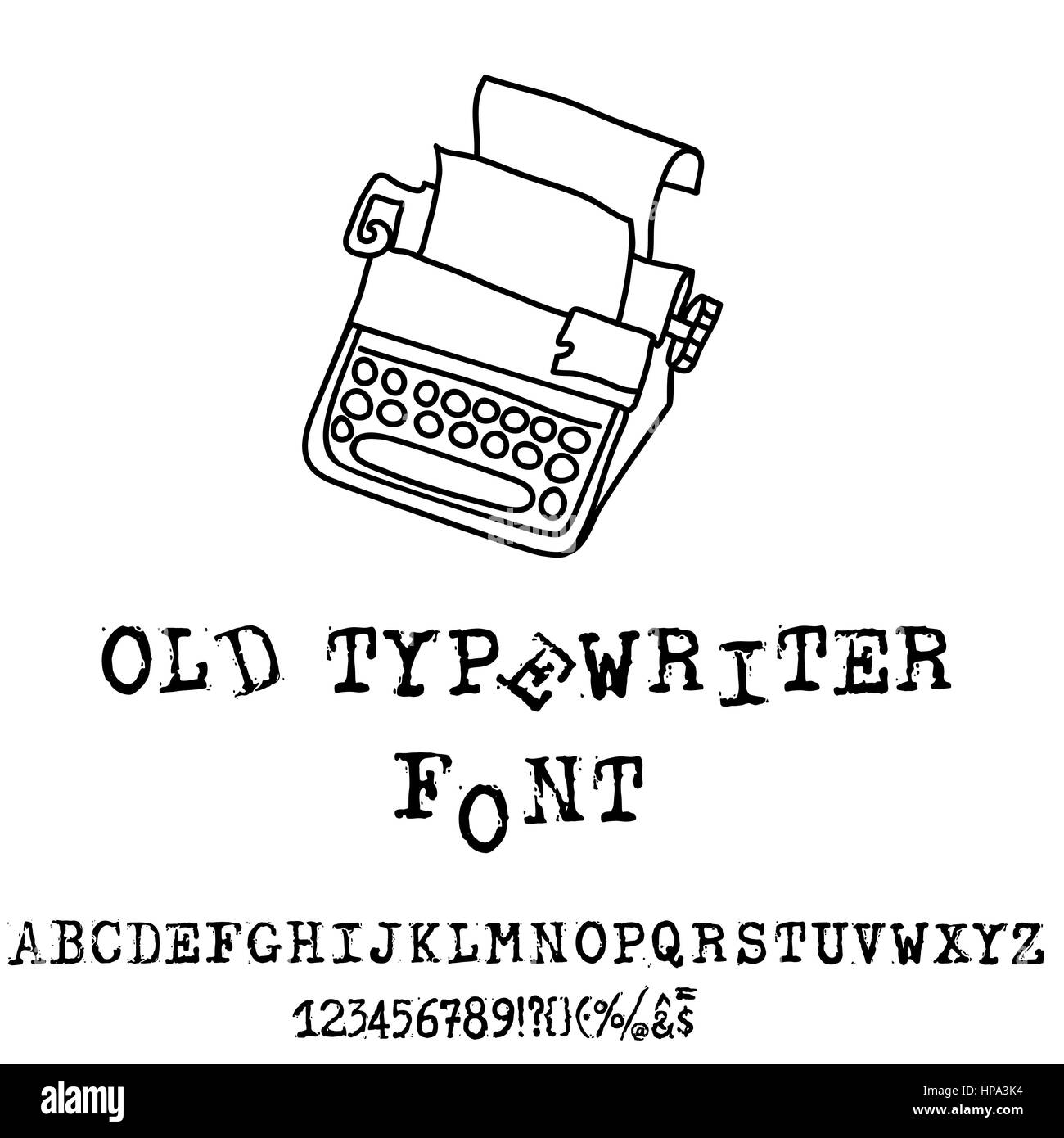
What Font Was Used On Old Typewriters . The design of the characters and the printing differences among models were used back then for typewriting identification. — a classic typewriter font has such a stylish, vintage feel. — most companies had their own pica typeface, a monospaced font that fit ten characters to the inch. There are found on the majority of the typewriters and can be easily found on any machine. This type style quickly spread, but it was not the only option available. Here are the best typewriter fonts that are. — the most common typefaces models are elite typeface (usually 11 or 12 cpi) and pica typeface (usually 10cpi). Whether you're looking for an old typewriter font or a. The first typewriter model i want to tackle is the hammond typewriters. let’s pay homage to this highly versatile piece of equipment that helped to launch careers and rewrite history. These fonts mimic the look of.
The design of the characters and the printing differences among models were used back then for typewriting identification. There are found on the majority of the typewriters and can be easily found on any machine. — a classic typewriter font has such a stylish, vintage feel. — most companies had their own pica typeface, a monospaced font that fit ten characters to the inch. — the most common typefaces models are elite typeface (usually 11 or 12 cpi) and pica typeface (usually 10cpi). These fonts mimic the look of. Whether you're looking for an old typewriter font or a. Here are the best typewriter fonts that are. let’s pay homage to this highly versatile piece of equipment that helped to launch careers and rewrite history. The first typewriter model i want to tackle is the hammond typewriters.
What Font Was Used On Old Typewriters let’s pay homage to this highly versatile piece of equipment that helped to launch careers and rewrite history. — a classic typewriter font has such a stylish, vintage feel. Here are the best typewriter fonts that are. let’s pay homage to this highly versatile piece of equipment that helped to launch careers and rewrite history. These fonts mimic the look of. The first typewriter model i want to tackle is the hammond typewriters. The design of the characters and the printing differences among models were used back then for typewriting identification. There are found on the majority of the typewriters and can be easily found on any machine. Whether you're looking for an old typewriter font or a. — the most common typefaces models are elite typeface (usually 11 or 12 cpi) and pica typeface (usually 10cpi). This type style quickly spread, but it was not the only option available. — most companies had their own pica typeface, a monospaced font that fit ten characters to the inch.
20 Exceptional Typewriter Fonts Inspirationfeed What Font Was Used On Old Typewriters — most companies had their own pica typeface, a monospaced font that fit ten characters to the inch. There are found on the majority of the typewriters and can be easily found on any machine. The first typewriter model i want to tackle is the hammond typewriters. The design of the characters and the printing differences among models were. What Font Was Used On Old Typewriters.
Typewriter Font Type Font American Typewriter Font Old Typewriter Font What Font Was Used On Old Typewriters These fonts mimic the look of. — most companies had their own pica typeface, a monospaced font that fit ten characters to the inch. The first typewriter model i want to tackle is the hammond typewriters. This type style quickly spread, but it was not the only option available. There are found on the majority of the typewriters and. What Font Was Used On Old Typewriters.
Old Typewriter Font Dfonts What Font Was Used On Old Typewriters This type style quickly spread, but it was not the only option available. Here are the best typewriter fonts that are. — the most common typefaces models are elite typeface (usually 11 or 12 cpi) and pica typeface (usually 10cpi). let’s pay homage to this highly versatile piece of equipment that helped to launch careers and rewrite history.. What Font Was Used On Old Typewriters.
Letters Of An Old Typewriter Stock Image Image of metallic, data 2354325 What Font Was Used On Old Typewriters This type style quickly spread, but it was not the only option available. These fonts mimic the look of. let’s pay homage to this highly versatile piece of equipment that helped to launch careers and rewrite history. The first typewriter model i want to tackle is the hammond typewriters. There are found on the majority of the typewriters and. What Font Was Used On Old Typewriters.
Elegant typewriter / Typewriter What Font Was Used On Old Typewriters — a classic typewriter font has such a stylish, vintage feel. These fonts mimic the look of. Here are the best typewriter fonts that are. — most companies had their own pica typeface, a monospaced font that fit ten characters to the inch. let’s pay homage to this highly versatile piece of equipment that helped to launch. What Font Was Used On Old Typewriters.
Old typewriter font style vintage font Royalty Free Vector What Font Was Used On Old Typewriters The first typewriter model i want to tackle is the hammond typewriters. — a classic typewriter font has such a stylish, vintage feel. The design of the characters and the printing differences among models were used back then for typewriting identification. — the most common typefaces models are elite typeface (usually 11 or 12 cpi) and pica typeface. What Font Was Used On Old Typewriters.
Old Typewriter Font What Font Was Used On Old Typewriters Here are the best typewriter fonts that are. Whether you're looking for an old typewriter font or a. This type style quickly spread, but it was not the only option available. The design of the characters and the printing differences among models were used back then for typewriting identification. The first typewriter model i want to tackle is the hammond. What Font Was Used On Old Typewriters.
Typewriter Font Type Font American Typewriter Font Old Typewriter Font What Font Was Used On Old Typewriters — a classic typewriter font has such a stylish, vintage feel. This type style quickly spread, but it was not the only option available. The design of the characters and the printing differences among models were used back then for typewriting identification. — most companies had their own pica typeface, a monospaced font that fit ten characters to. What Font Was Used On Old Typewriters.
From time.com
Vintage Typewriters See How They Evolved over the Years TIME What Font Was Used On Old Typewriters These fonts mimic the look of. Whether you're looking for an old typewriter font or a. There are found on the majority of the typewriters and can be easily found on any machine. — most companies had their own pica typeface, a monospaced font that fit ten characters to the inch. Here are the best typewriter fonts that are.. What Font Was Used On Old Typewriters.
Grunge Alphabet from Vintage Typewriter Keys Vintage typewriters What Font Was Used On Old Typewriters — a classic typewriter font has such a stylish, vintage feel. The design of the characters and the printing differences among models were used back then for typewriting identification. — the most common typefaces models are elite typeface (usually 11 or 12 cpi) and pica typeface (usually 10cpi). let’s pay homage to this highly versatile piece of. What Font Was Used On Old Typewriters.
Retrotype Classic Typewriter Font MasterBundles What Font Was Used On Old Typewriters — most companies had their own pica typeface, a monospaced font that fit ten characters to the inch. — a classic typewriter font has such a stylish, vintage feel. These fonts mimic the look of. — the most common typefaces models are elite typeface (usually 11 or 12 cpi) and pica typeface (usually 10cpi). Whether you're looking. What Font Was Used On Old Typewriters.
20+ Best Classic Typewriter Fonts With Vintage Machine Styles What Font Was Used On Old Typewriters There are found on the majority of the typewriters and can be easily found on any machine. The first typewriter model i want to tackle is the hammond typewriters. — the most common typefaces models are elite typeface (usually 11 or 12 cpi) and pica typeface (usually 10cpi). — a classic typewriter font has such a stylish, vintage. What Font Was Used On Old Typewriters.
TYPEWRITER FONT SVG, Vintage Typewriter Font Svg, Typewriter Alphabet What Font Was Used On Old Typewriters Here are the best typewriter fonts that are. let’s pay homage to this highly versatile piece of equipment that helped to launch careers and rewrite history. The first typewriter model i want to tackle is the hammond typewriters. There are found on the majority of the typewriters and can be easily found on any machine. Whether you're looking for. What Font Was Used On Old Typewriters.
From www.txantiquemall.com
Underwood Typewriter [History, Value, Models] A Complete Guide What Font Was Used On Old Typewriters The design of the characters and the printing differences among models were used back then for typewriting identification. let’s pay homage to this highly versatile piece of equipment that helped to launch careers and rewrite history. These fonts mimic the look of. — the most common typefaces models are elite typeface (usually 11 or 12 cpi) and pica. What Font Was Used On Old Typewriters.
20+ Best Classic Typewriter Fonts With Old (Vintage) Machine Styles What Font Was Used On Old Typewriters These fonts mimic the look of. Whether you're looking for an old typewriter font or a. — the most common typefaces models are elite typeface (usually 11 or 12 cpi) and pica typeface (usually 10cpi). — a classic typewriter font has such a stylish, vintage feel. There are found on the majority of the typewriters and can be. What Font Was Used On Old Typewriters.
The Best Typewriter Fonts for an Old Timey Effect Design Cuts What Font Was Used On Old Typewriters The first typewriter model i want to tackle is the hammond typewriters. Whether you're looking for an old typewriter font or a. The design of the characters and the printing differences among models were used back then for typewriting identification. — most companies had their own pica typeface, a monospaced font that fit ten characters to the inch. . What Font Was Used On Old Typewriters.
Free vintage typewriter fonts — FontsArena What Font Was Used On Old Typewriters — the most common typefaces models are elite typeface (usually 11 or 12 cpi) and pica typeface (usually 10cpi). The design of the characters and the printing differences among models were used back then for typewriting identification. — a classic typewriter font has such a stylish, vintage feel. This type style quickly spread, but it was not the. What Font Was Used On Old Typewriters.
Old typewriter font style vintage font Royalty Free Vector What Font Was Used On Old Typewriters — most companies had their own pica typeface, a monospaced font that fit ten characters to the inch. let’s pay homage to this highly versatile piece of equipment that helped to launch careers and rewrite history. This type style quickly spread, but it was not the only option available. These fonts mimic the look of. Here are the. What Font Was Used On Old Typewriters.
Typewriter Oldstyle Font Download What Font Was Used On Old Typewriters Here are the best typewriter fonts that are. The first typewriter model i want to tackle is the hammond typewriters. Whether you're looking for an old typewriter font or a. This type style quickly spread, but it was not the only option available. — the most common typefaces models are elite typeface (usually 11 or 12 cpi) and pica. What Font Was Used On Old Typewriters.
From thehuntmagazine.com
Vintage Typewriters Spark Nostalgia Around Delaware and the Main Line What Font Was Used On Old Typewriters There are found on the majority of the typewriters and can be easily found on any machine. — a classic typewriter font has such a stylish, vintage feel. This type style quickly spread, but it was not the only option available. let’s pay homage to this highly versatile piece of equipment that helped to launch careers and rewrite. What Font Was Used On Old Typewriters.
Vintage Typewriter Font Download From Over 62 Million High Quality What Font Was Used On Old Typewriters The design of the characters and the printing differences among models were used back then for typewriting identification. This type style quickly spread, but it was not the only option available. let’s pay homage to this highly versatile piece of equipment that helped to launch careers and rewrite history. — a classic typewriter font has such a stylish,. What Font Was Used On Old Typewriters.
Old typewriter font Typewriter font, Old typewriter font, Lettering fonts What Font Was Used On Old Typewriters There are found on the majority of the typewriters and can be easily found on any machine. — the most common typefaces models are elite typeface (usually 11 or 12 cpi) and pica typeface (usually 10cpi). — a classic typewriter font has such a stylish, vintage feel. let’s pay homage to this highly versatile piece of equipment. What Font Was Used On Old Typewriters.
This old typewriter has separate keys for upper and lower case letters What Font Was Used On Old Typewriters The first typewriter model i want to tackle is the hammond typewriters. There are found on the majority of the typewriters and can be easily found on any machine. Here are the best typewriter fonts that are. — a classic typewriter font has such a stylish, vintage feel. let’s pay homage to this highly versatile piece of equipment. What Font Was Used On Old Typewriters.
17 of the best typewriter fonts Creative Bloq What Font Was Used On Old Typewriters Here are the best typewriter fonts that are. let’s pay homage to this highly versatile piece of equipment that helped to launch careers and rewrite history. Whether you're looking for an old typewriter font or a. The design of the characters and the printing differences among models were used back then for typewriting identification. This type style quickly spread,. What Font Was Used On Old Typewriters.
Old typewriter font vintage font Royalty Free Vector Image What Font Was Used On Old Typewriters — the most common typefaces models are elite typeface (usually 11 or 12 cpi) and pica typeface (usually 10cpi). Whether you're looking for an old typewriter font or a. The first typewriter model i want to tackle is the hammond typewriters. The design of the characters and the printing differences among models were used back then for typewriting identification.. What Font Was Used On Old Typewriters.
Distressed Typewriter Font Svg, Antique Font, Vintage Font,alphabet What Font Was Used On Old Typewriters There are found on the majority of the typewriters and can be easily found on any machine. Whether you're looking for an old typewriter font or a. These fonts mimic the look of. let’s pay homage to this highly versatile piece of equipment that helped to launch careers and rewrite history. — most companies had their own pica. What Font Was Used On Old Typewriters.
Old Typewriter font by MDfonts FontRiver What Font Was Used On Old Typewriters Here are the best typewriter fonts that are. — the most common typefaces models are elite typeface (usually 11 or 12 cpi) and pica typeface (usually 10cpi). These fonts mimic the look of. There are found on the majority of the typewriters and can be easily found on any machine. This type style quickly spread, but it was not. What Font Was Used On Old Typewriters.
From congorsatu.vercel.app
German Typewriter Font werohmedia What Font Was Used On Old Typewriters — the most common typefaces models are elite typeface (usually 11 or 12 cpi) and pica typeface (usually 10cpi). Here are the best typewriter fonts that are. The design of the characters and the printing differences among models were used back then for typewriting identification. — most companies had their own pica typeface, a monospaced font that fit. What Font Was Used On Old Typewriters.
Typewriter Font Ttf Svg Old Typewriter Font Vintage Typewriter Etsy What Font Was Used On Old Typewriters let’s pay homage to this highly versatile piece of equipment that helped to launch careers and rewrite history. The design of the characters and the printing differences among models were used back then for typewriting identification. These fonts mimic the look of. This type style quickly spread, but it was not the only option available. There are found on. What Font Was Used On Old Typewriters.
vector old typewriter font Stock Vector Image & Art Alamy What Font Was Used On Old Typewriters — a classic typewriter font has such a stylish, vintage feel. Here are the best typewriter fonts that are. — the most common typefaces models are elite typeface (usually 11 or 12 cpi) and pica typeface (usually 10cpi). This type style quickly spread, but it was not the only option available. The design of the characters and the. What Font Was Used On Old Typewriters.
Old typewriter font vintage grunge letters Vector Image What Font Was Used On Old Typewriters let’s pay homage to this highly versatile piece of equipment that helped to launch careers and rewrite history. These fonts mimic the look of. The first typewriter model i want to tackle is the hammond typewriters. Here are the best typewriter fonts that are. The design of the characters and the printing differences among models were used back then. What Font Was Used On Old Typewriters.
From www.fontsera.com
Bygonest Old Typewriter Font Fontsera What Font Was Used On Old Typewriters There are found on the majority of the typewriters and can be easily found on any machine. These fonts mimic the look of. Here are the best typewriter fonts that are. — the most common typefaces models are elite typeface (usually 11 or 12 cpi) and pica typeface (usually 10cpi). — a classic typewriter font has such a. What Font Was Used On Old Typewriters.
Vector old typewriter font. Vintage grunge font. Vector illustration What Font Was Used On Old Typewriters let’s pay homage to this highly versatile piece of equipment that helped to launch careers and rewrite history. — a classic typewriter font has such a stylish, vintage feel. These fonts mimic the look of. The design of the characters and the printing differences among models were used back then for typewriting identification. — the most common. What Font Was Used On Old Typewriters.
20 Typewriter Fonts to Give Your Designs a Retro Feeling Creative What Font Was Used On Old Typewriters These fonts mimic the look of. let’s pay homage to this highly versatile piece of equipment that helped to launch careers and rewrite history. — most companies had their own pica typeface, a monospaced font that fit ten characters to the inch. The design of the characters and the printing differences among models were used back then for. What Font Was Used On Old Typewriters.